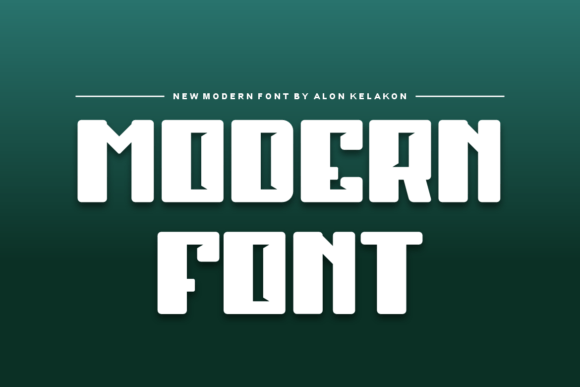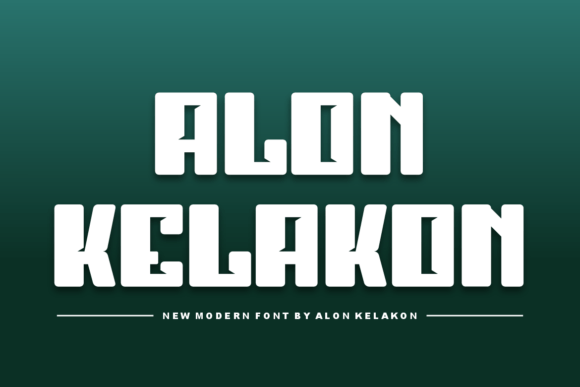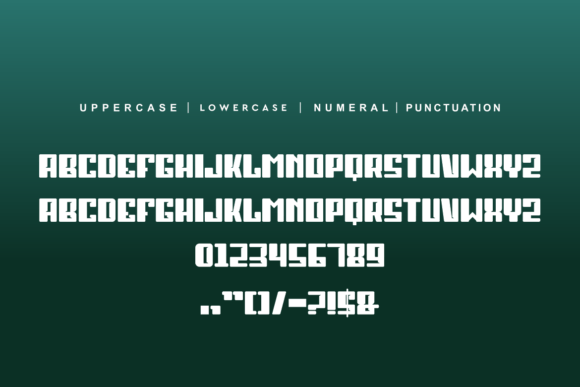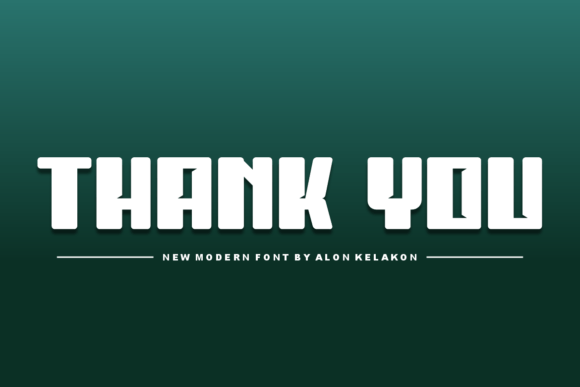
Introduction to Nestart Font
Nestart is a unique display font ready to be used on labeling, clothing, movie posters, movie titles, gigs, album covers, logos, and much more.
Key Features of Nestart Font